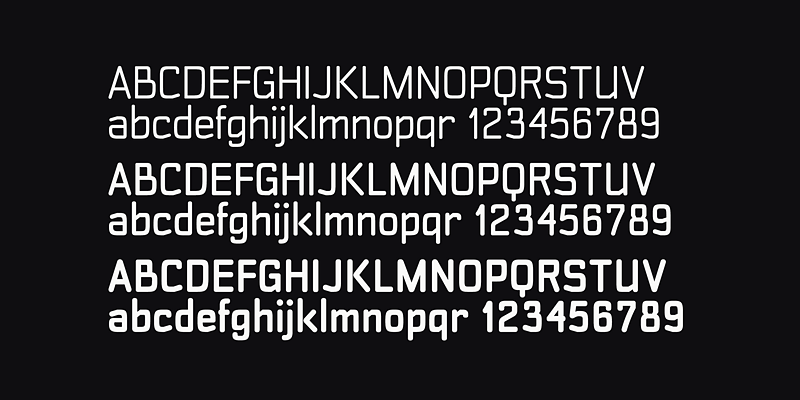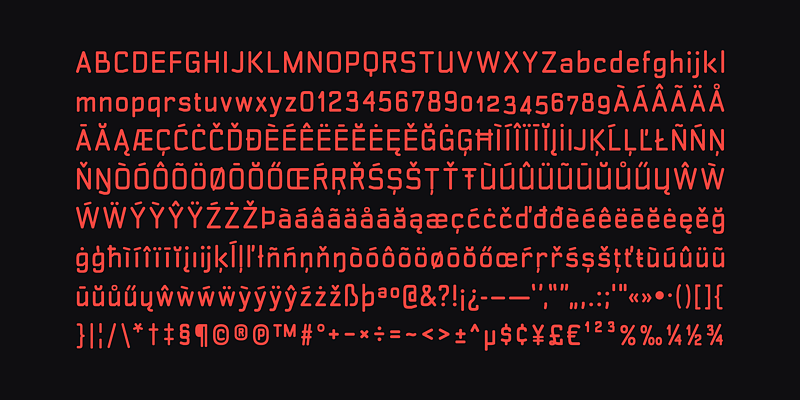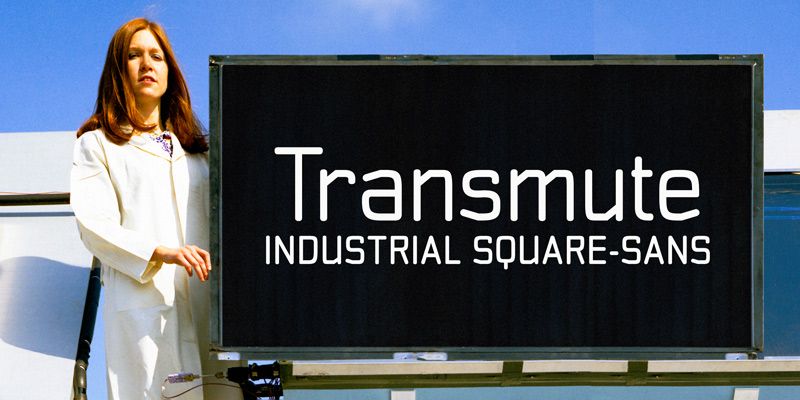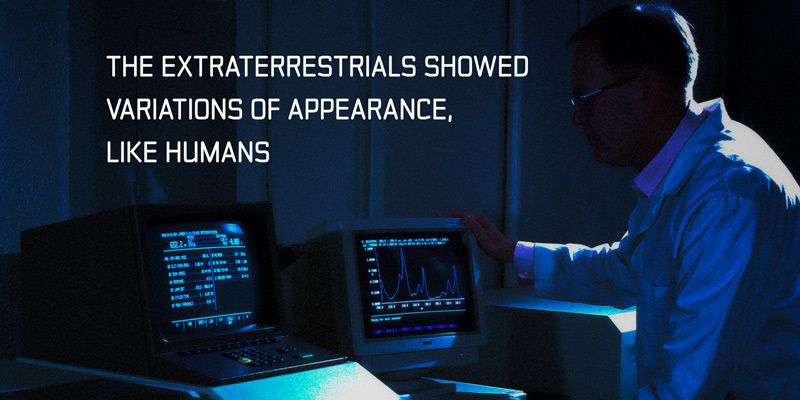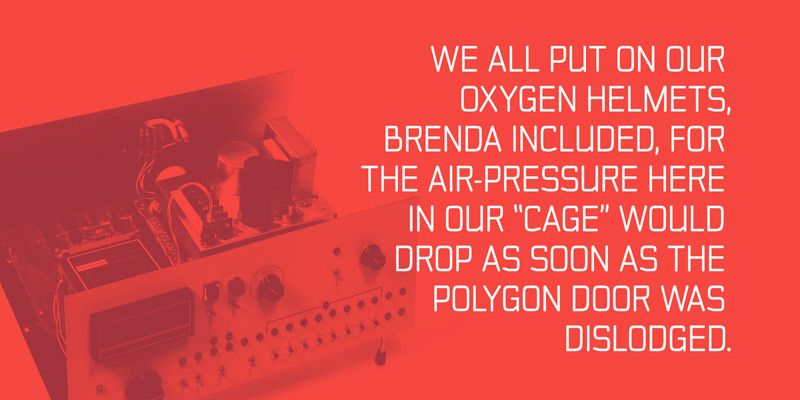
Transmute is a square-sans family inspired by contemporary industrial design. Clipped details and rounded corners give its compact letters the character of controls, panels, and modular equipment without imitating a particular machine. It can identify electronic instruments, laboratory devices, robotics exhibits, and technical product lines while staying readable as a short headline. Light, Regular, and Bold offer enough range to connect a restrained label with a stronger model name. Its geometry works especially well when the lettering appears close to physical hardware: on a housing, case, diagram, or launch display.